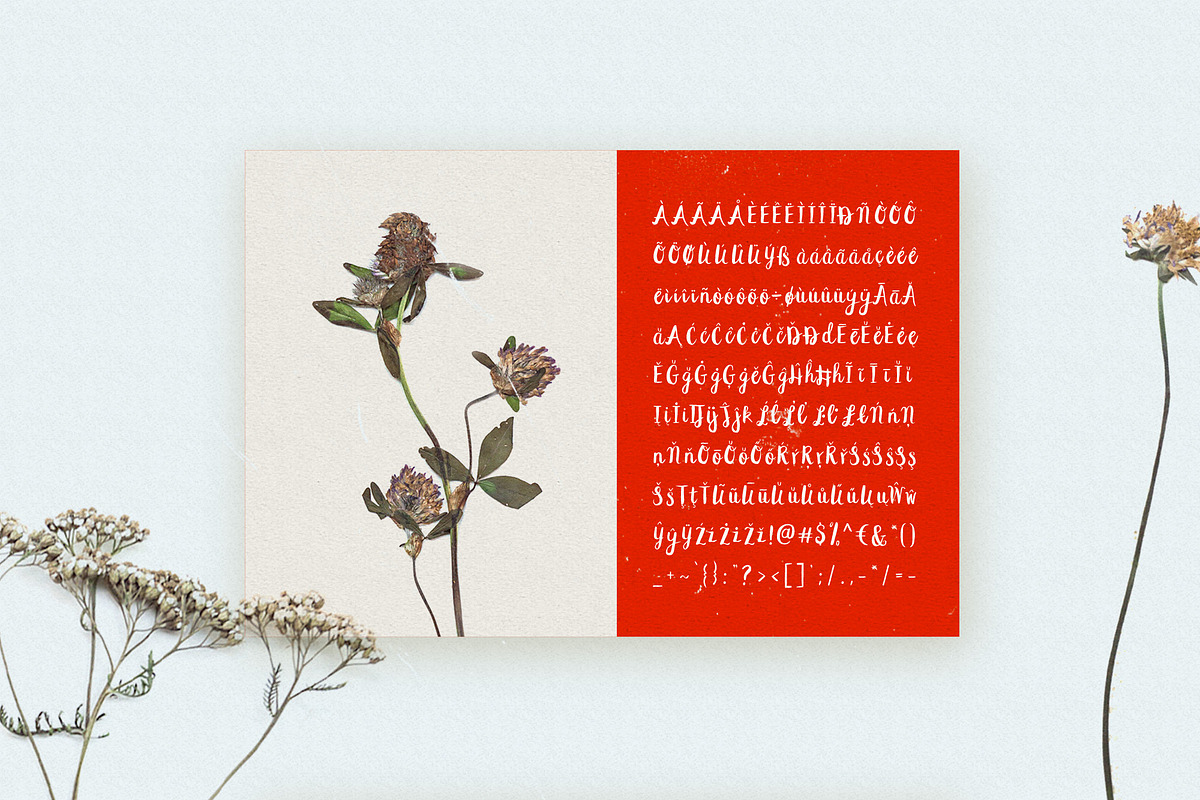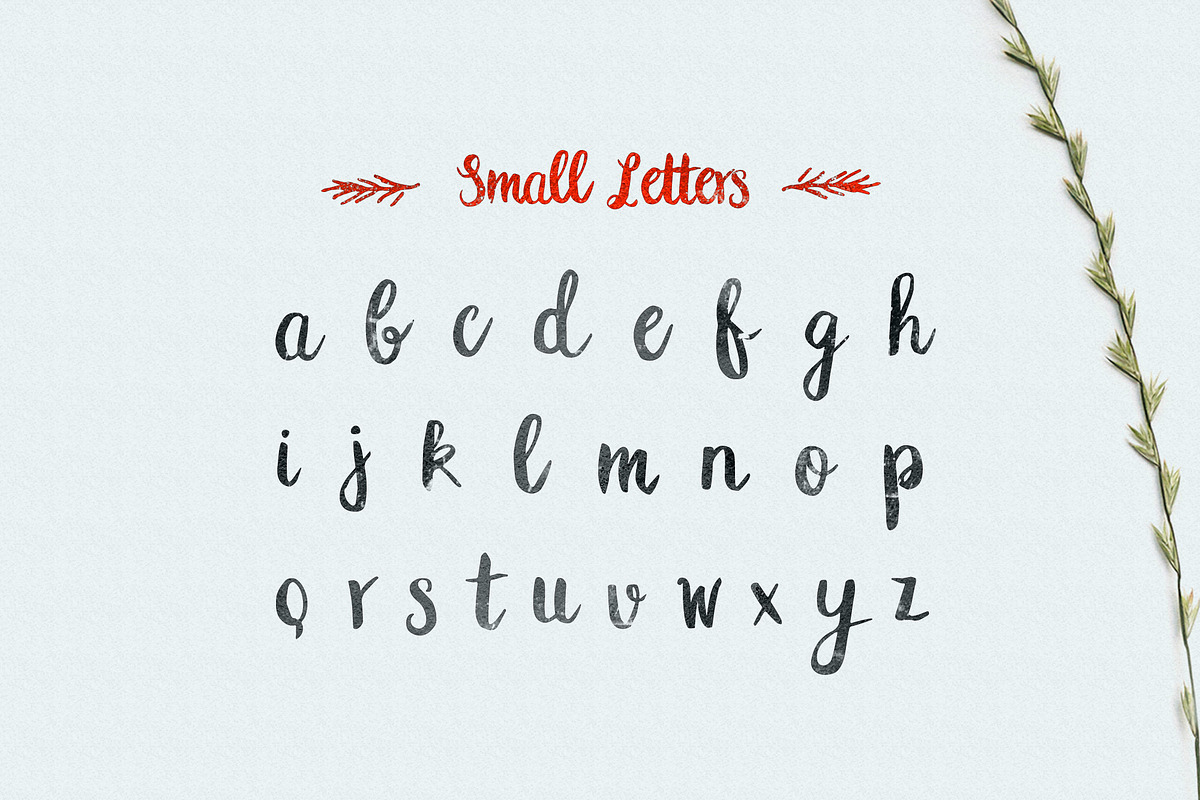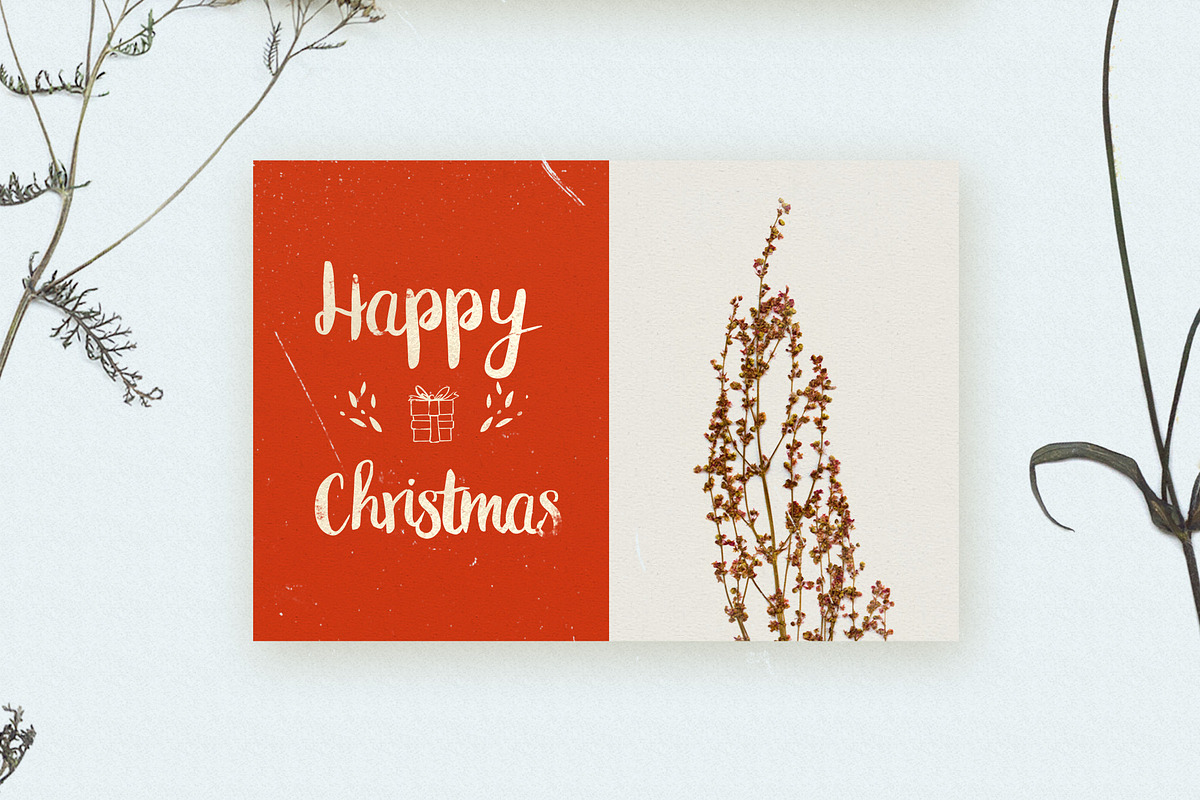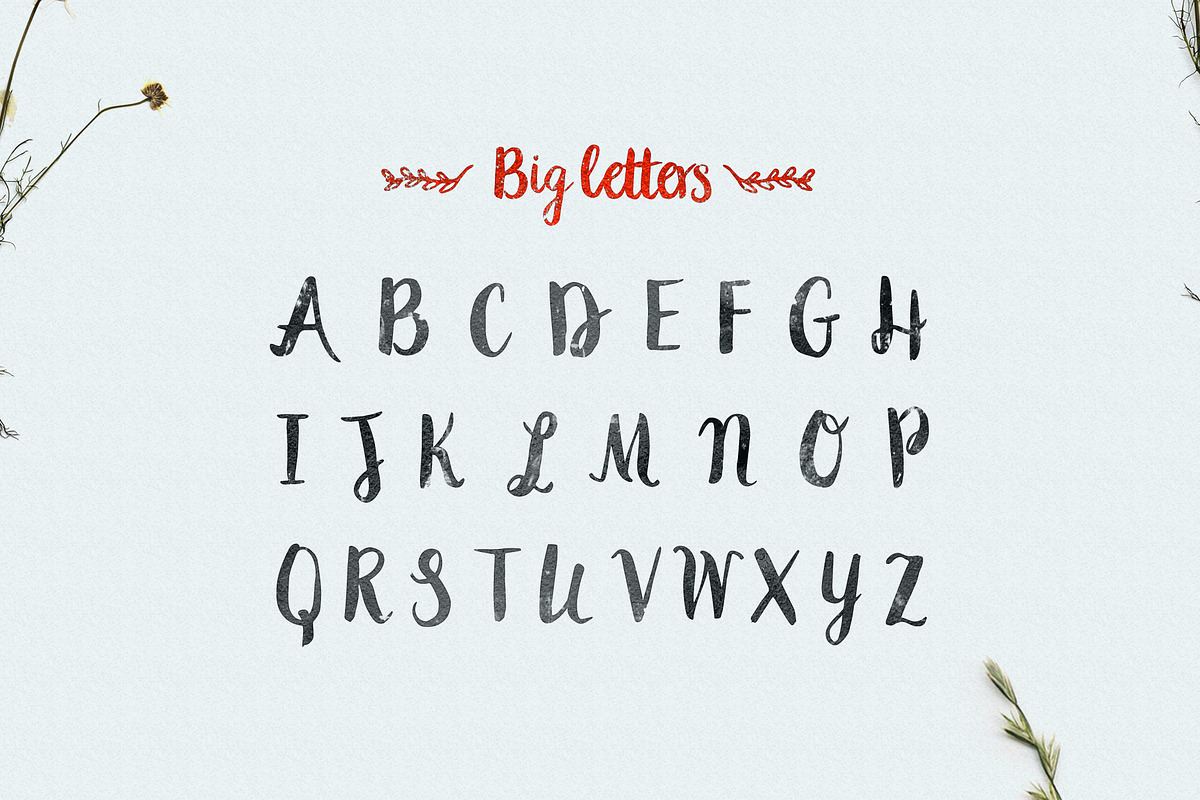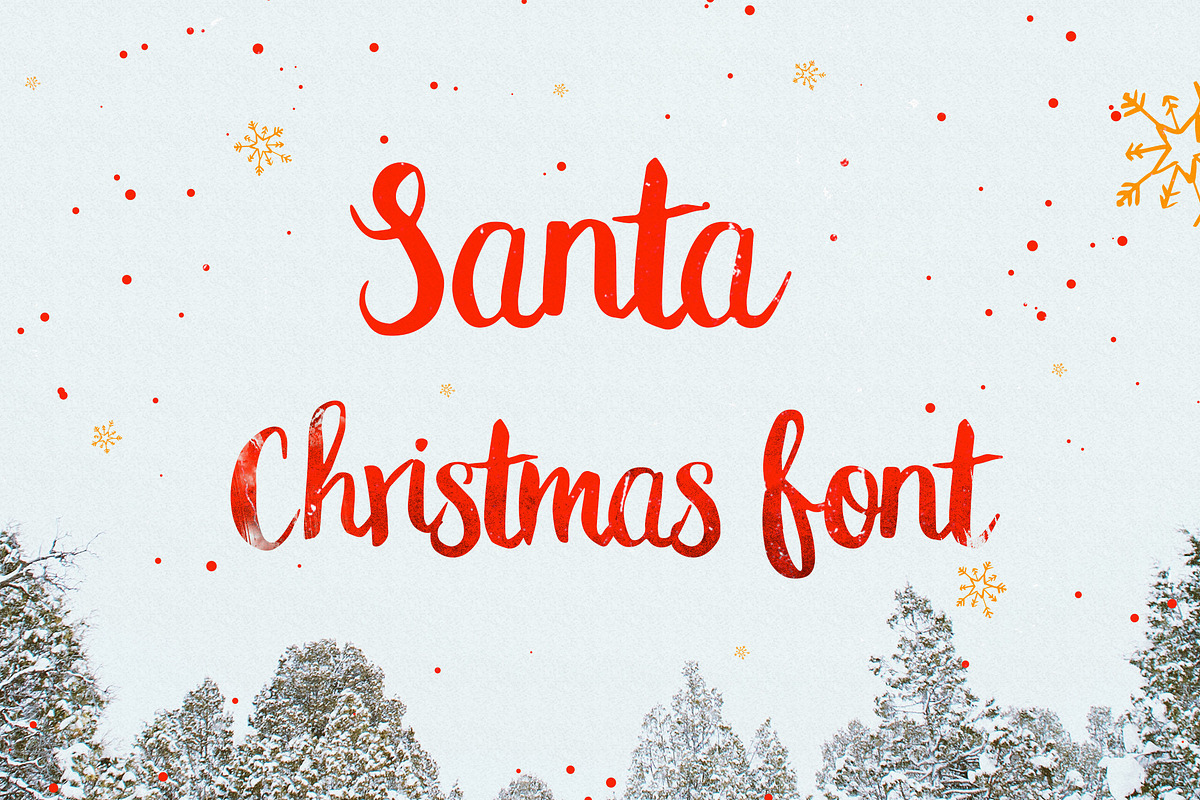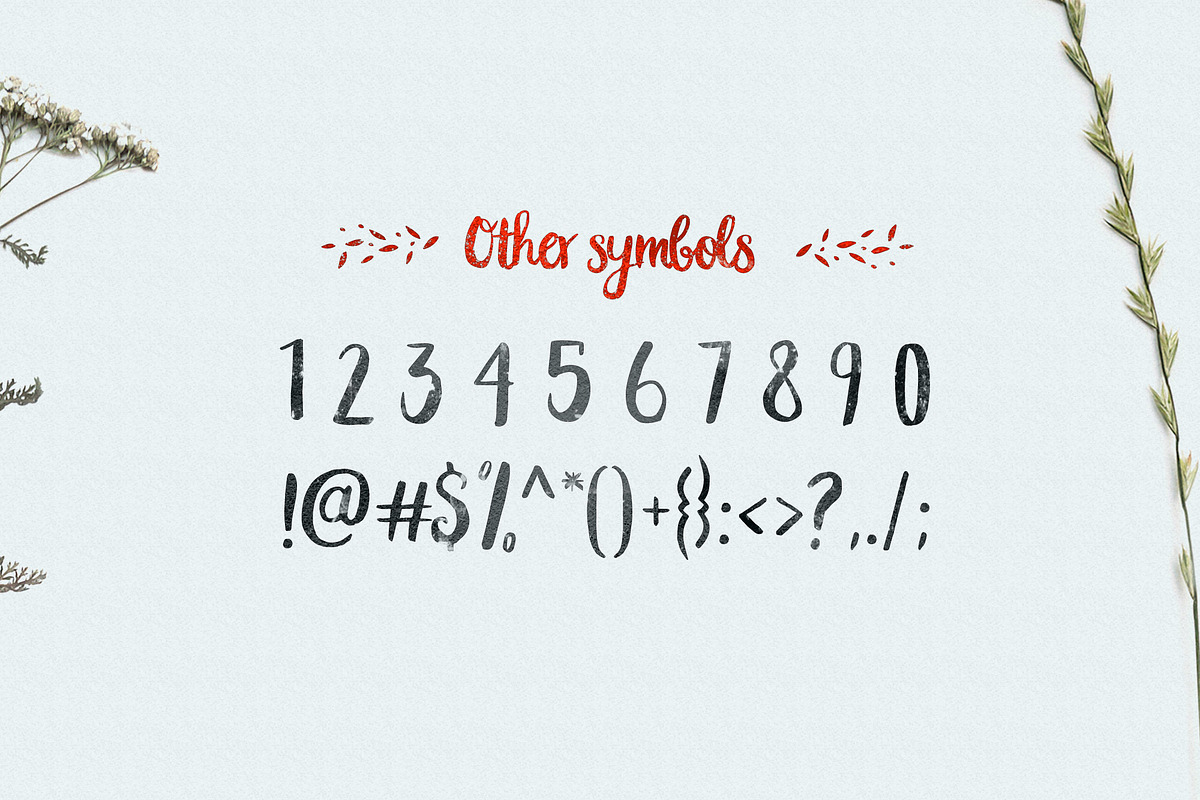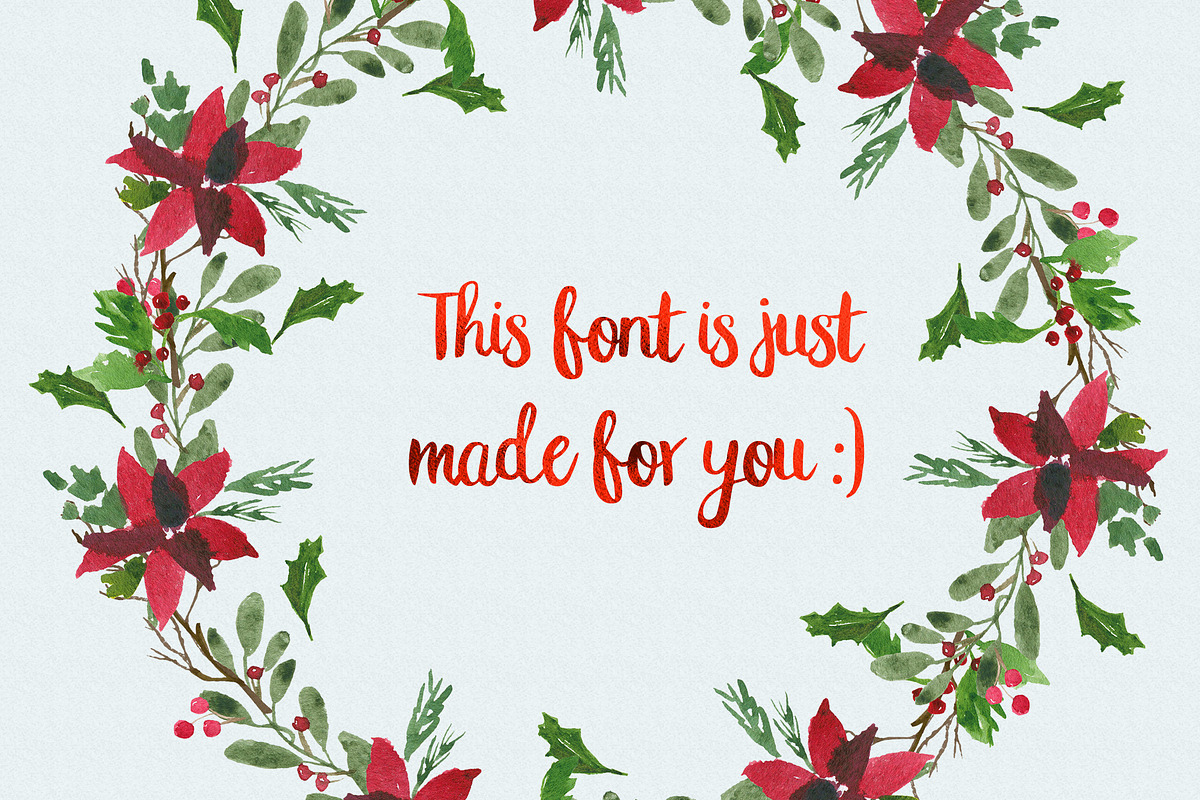
Santa Christmas Font Type
Santa Extended Christmas Font
It was made by the artist Ieva and Krisjanis Mezulis. Inspired by the lovely nature of forests and fields, after collecting flowers for a personal herbarium. All the letters are brushed with a fude brush full with thick black ink, on a clean and smooth pastel paper.
The font features both uppercase and lowercase letters, so you will have a wide range of characters to use in typographic work. It is suitable for Christmas cards, wedding invitations, branding, stationery, blog design, custom art, custom stamps, custom embossers, or any design purpose. You can use it for your personal use, or for a commercial project.
- The font features both uppercase and lowercase letters, so you will have a wide range of characters to use in typographic work.